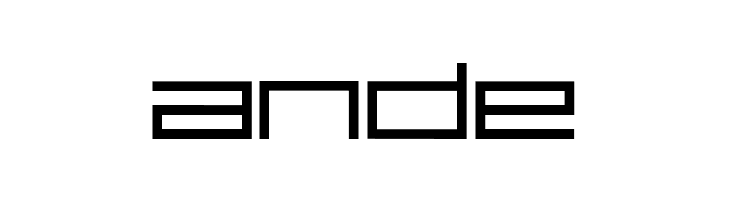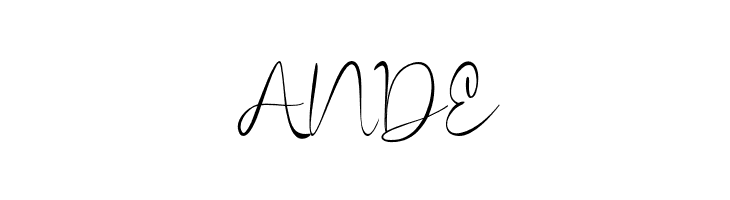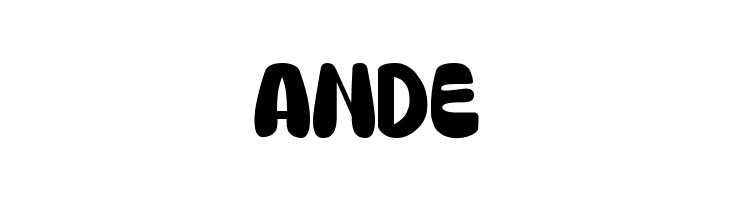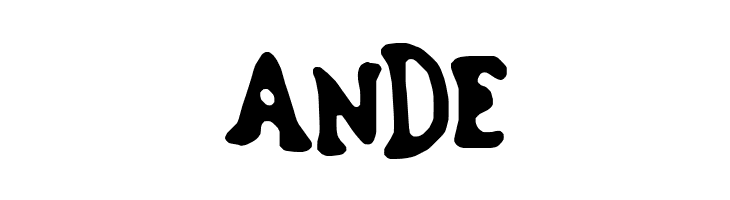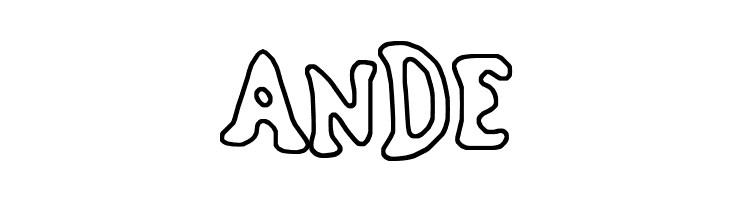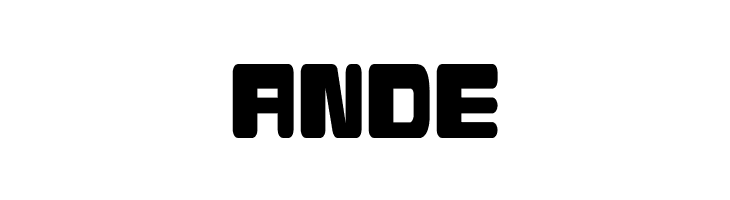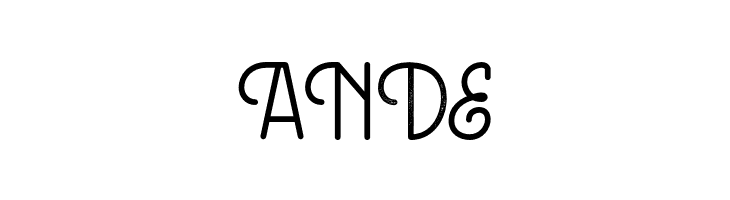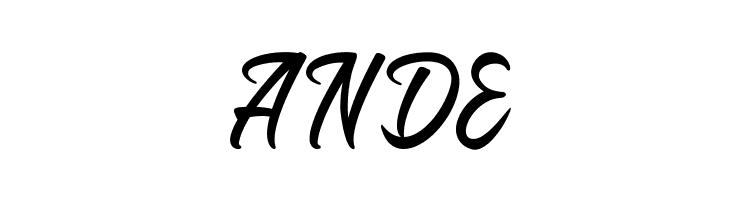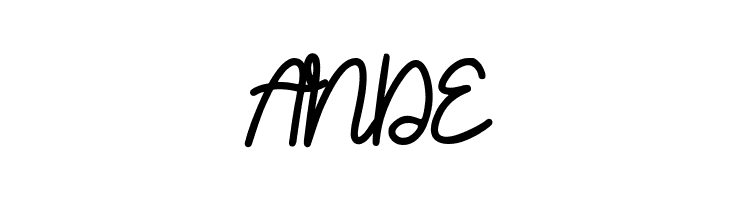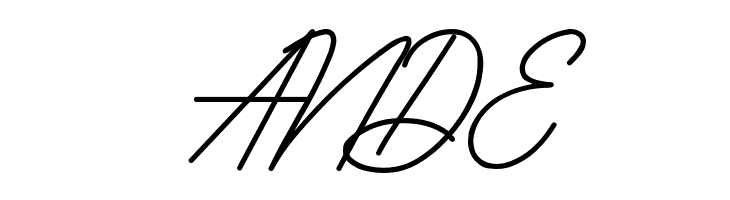
( K-Type - www.k-type.com )
A modern, semi-bold italic sans-serif font with clean lines and excellent readability.
( K-Type - www.k-type.com )
A bold, modern sans-serif font with clean lines and balanced proportions.
( K-Type - www.k-type.com )
A modern, bold, and italic sans-serif font with a sleek and dynamic style.
( K-Type - www.k-type.com )
A bold, italicized sans-serif font with a modern and assertive style.
( Fonts by Mr Fisk - Mike Larsson - fontorama.net )
A playful, hand-drawn font with bold, uneven strokes and a whimsical style.
( Fonts by Mr Fisk - Mike Larsson - fontorama.net )
A playful, hand-drawn outline font with a whimsical and energetic style.
( Fonts by Hamsah )
A bold, rounded, and playful font with a chunky appearance.
( Fonts by Chris Vile )
A bold, gothic-inspired script font with intricate, thorn-like details.
A classic serif font with elegant strokes and refined details.
A playful, hand-drawn style font with bold, rounded characters.
( Fonts by www.fontdiner.com )
A bold, hand-drawn font with textured, dynamic strokes.
A bold, expressive script font with flowing, cursive design.
( Fonts by Mariyana )
A bold, expressive handwritten font with dynamic strokes.
A dynamic and flowing script font with elegant curves and a cursive style.
A bold, decorative font with sharp, elongated letterforms and high contrast.
A dynamic and elegant script font with a flowing, handwritten style.
( Fonts by Eduardo Tunni )
A modern, clean sans-serif font with balanced spacing and uniform stroke width.
A clean, modern sans-serif font with balanced spacing and consistent stroke width.
A playful monoline script font with a casual, handwritten style.
( Fonts by InspiraType )
Expressive handwritten script with contrasting weights.
An elegant, flowing script font with a natural handwritten style.
A modern, handwritten script font with elegant, flowing strokes.
( Ferdiansyah - creativemarket.com/ijemrockart )
A cursive script font with elegant loops and swirls, perfect for sophisticated designs.
A bold, geometric font with rounded edges and a modern style.
( Fonts by Ben Dunkle )
A bold, geometric font with intricate cutouts and sharp angles for a striking, modern look.
( Anthony Robinson - www.redbubble.com/people/anfa/portfolio )
A bold, angular font with a medieval-inspired, jagged design.
A playful and artistic font combining script and sans-serif styles.